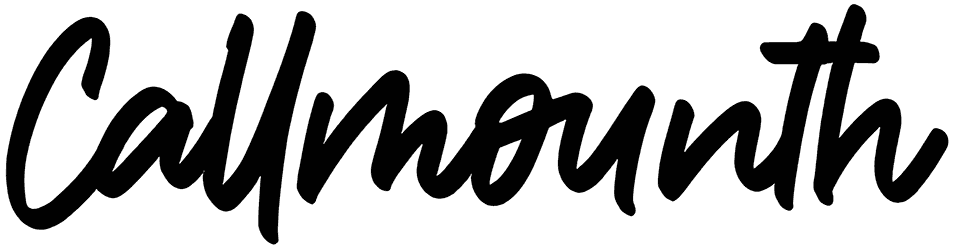
Callmounth Font
A casual handwritten font is always a nice pickup for varied themes, and the Callmounth font, with its unique form, is one of them. The bold and natural form of characters will help you to communicate well with your followers. We offer you to set this script font for your new Christmas postcard design and make it memorable.